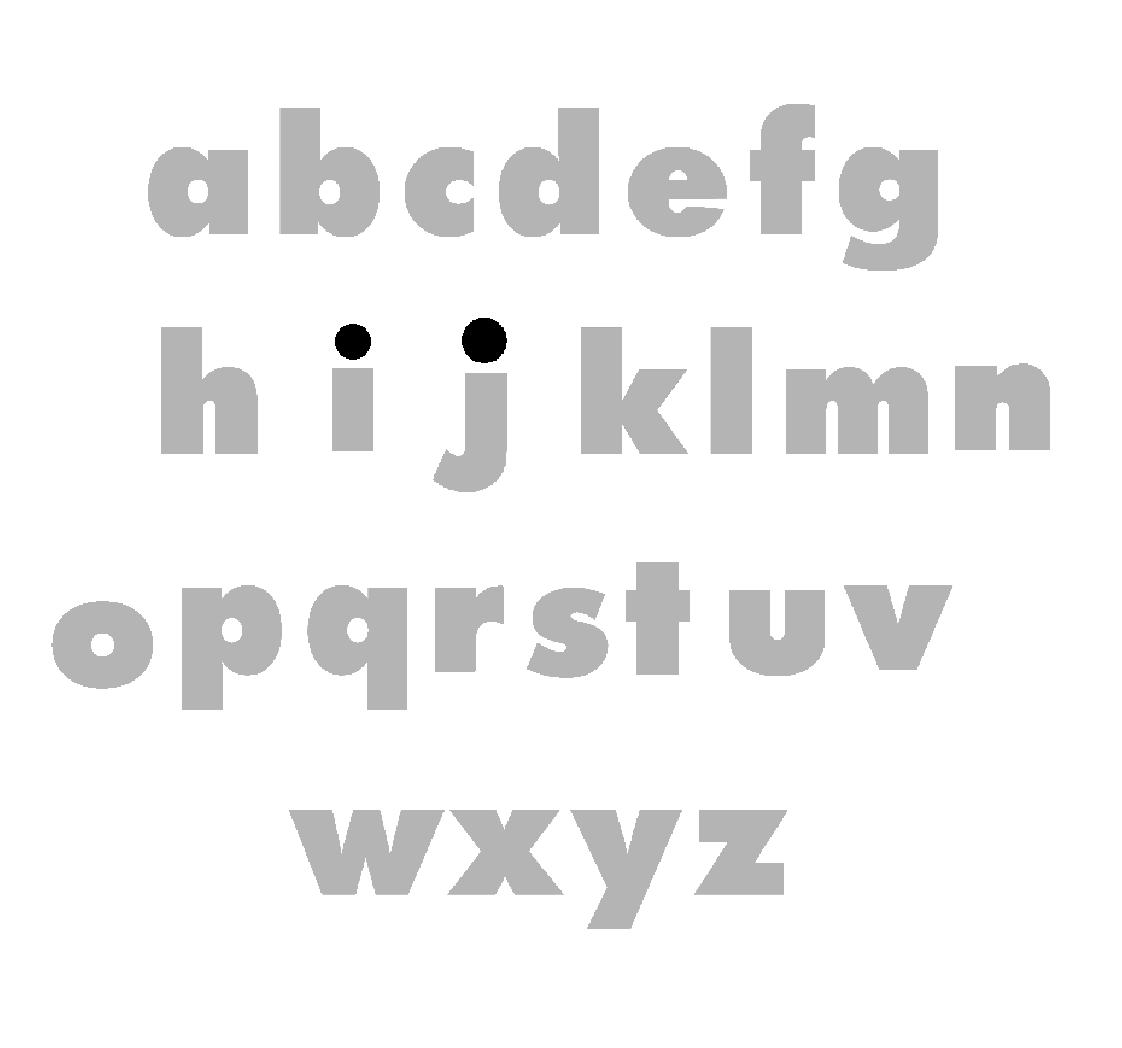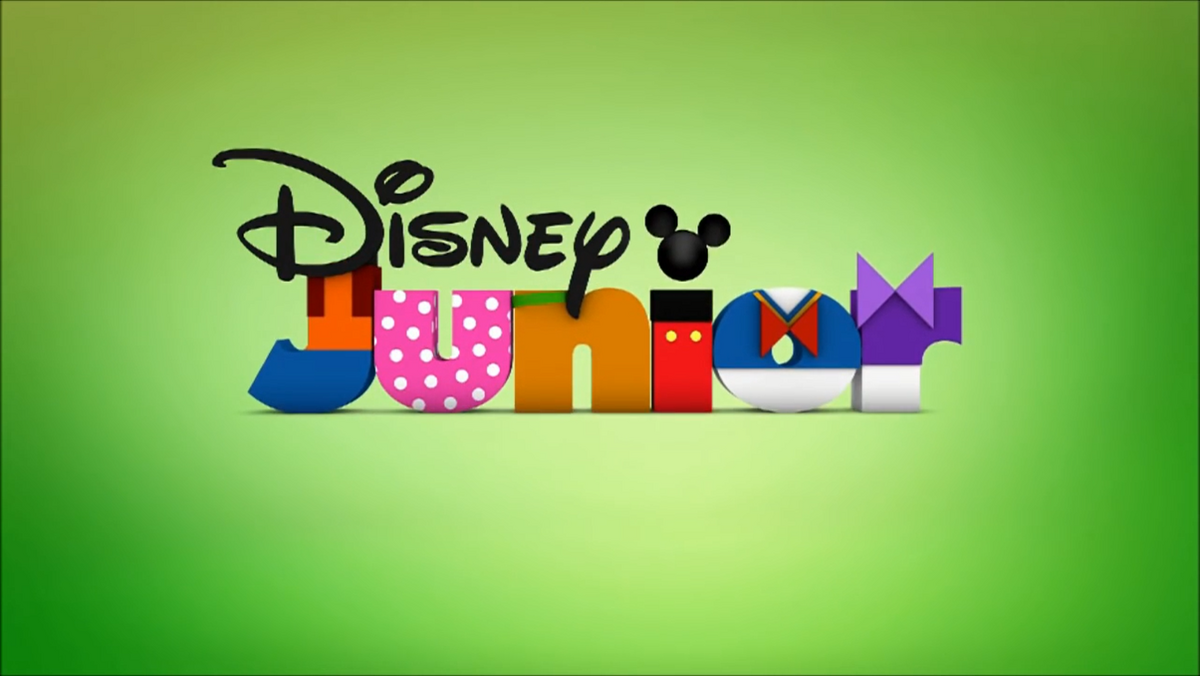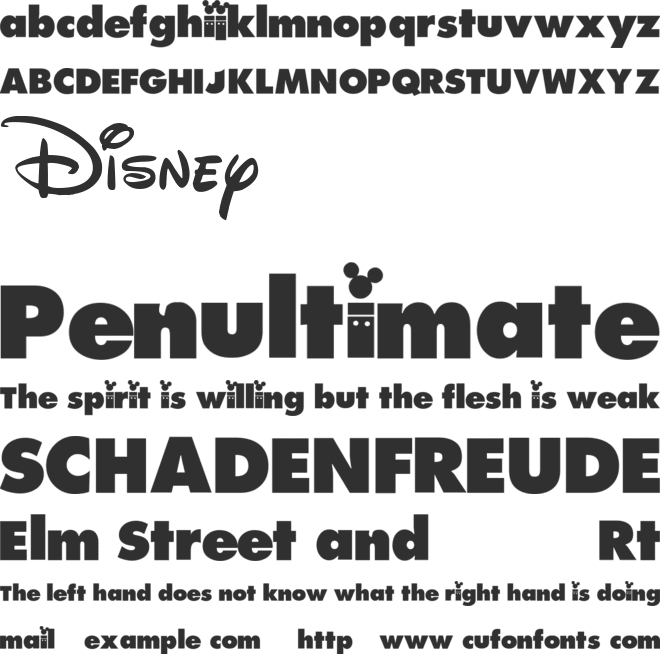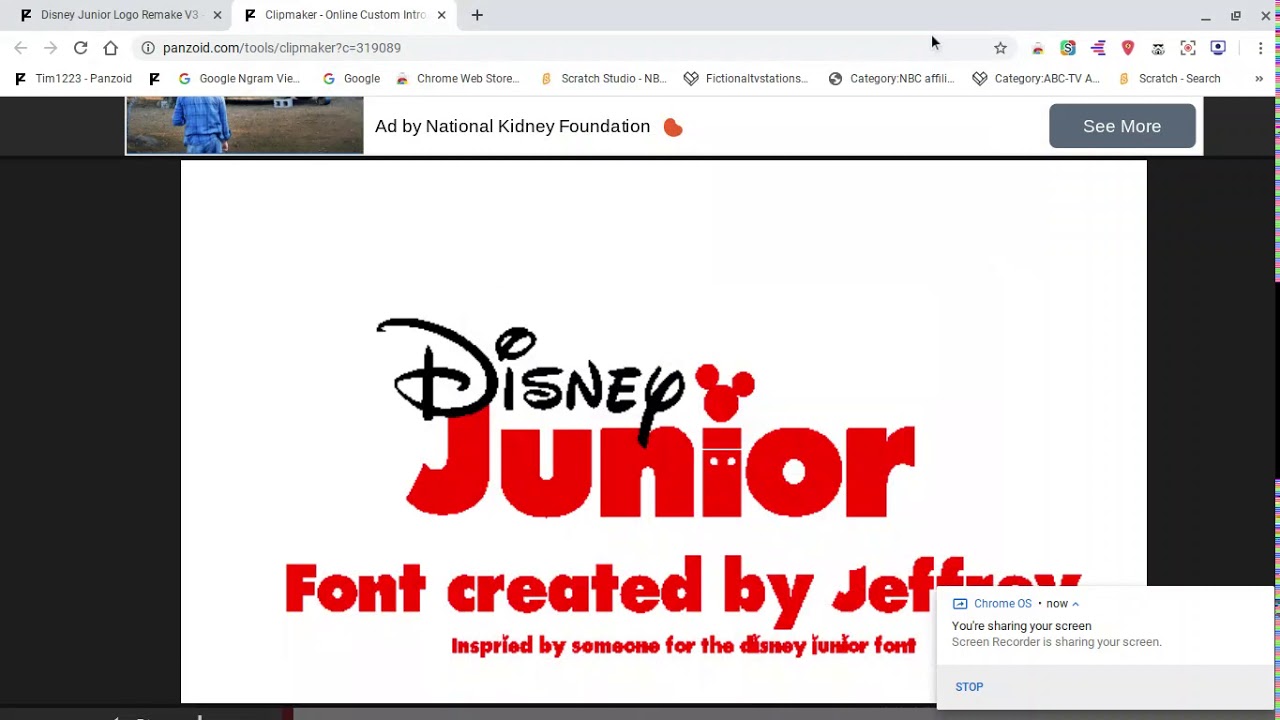
Disney Junior Font
Discover the free disney junior regular font at free font download ! Installable on pc, mac, linux, ios, and android platforms. Disney junior font download is available free from 8font.com. Disney junior font is a cartoon, fancy type font that can be used on. Download disney junior on bumper font from free cdn or use it on your website as.
Discover the free disney junior regular font at free font download ! Installable on pc, mac, linux, ios, and android platforms. Disney junior font is a cartoon, fancy type font that can be used on. Download disney junior on bumper font from free cdn or use it on your website as webfont. Disney junior font download is available free from.
Discover the free disney junior regular font at free font download ! Download disney junior on bumper font from free cdn or use it on your website as webfont. Disney junior font is a cartoon, fancy type font that can be used on. Installable on pc, mac, linux, ios, and android platforms. Disney junior font download is available free from.